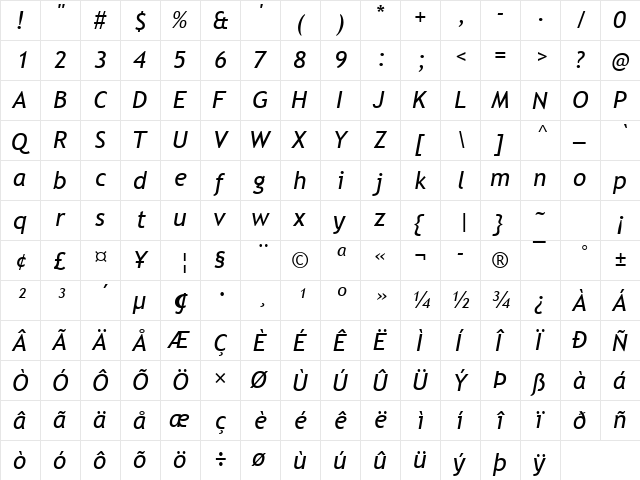
Trebuchet MS Italic
| Foundry | Microsoft Corp. |
| Designer | Vincent Connare |
Design Context for Trebuchet MS Typeface
Trebuchet MS is a composed and adaptable typeface that performs quietly and consistently across a wide range of design contexts. Its italic angle brings a sense of urgency and motion to the letterforms.
Pro Tip: Try Trebuchet MS for annotation and caption copy alongside an upright companion — the contrast in angle creates a dynamic but ordered typographic system.